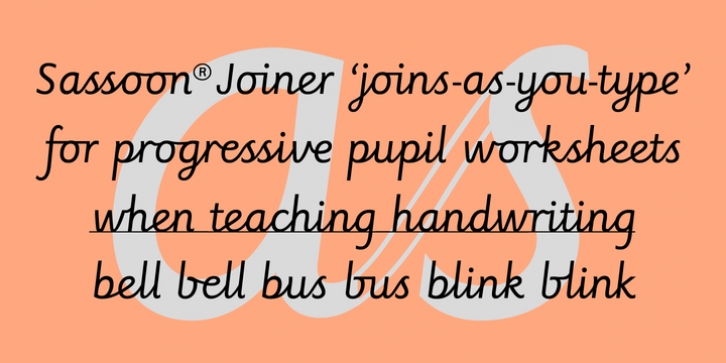
Sassoon Joined ENGLISH downloadDesigner: Rosemary Sassoon,
These fonts will join-as-you-type in your app as shown in the posters above. They are displayed below and also delivered unjoined as the Default. In your app just choose Use Contextual Alternates option to get basic recommended baseline joins for teaching. Additionally, you can choose from 7 Stylistic Sets of alternative letterforms that are so important for Teachers. To create a ‘pen lift' anytime, just type the " | " character to force a break between joining letters.